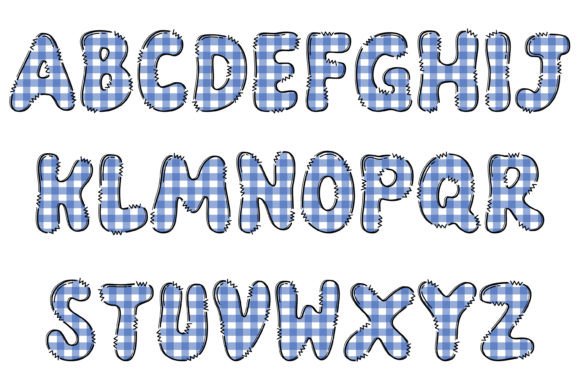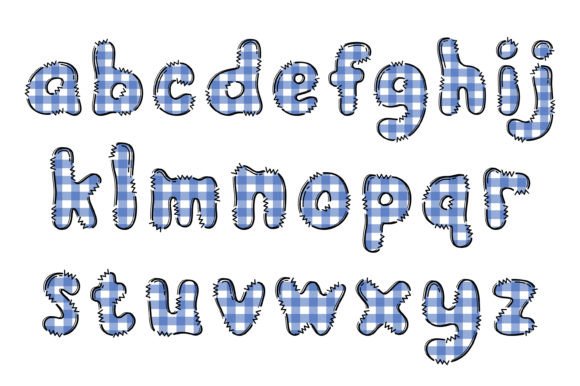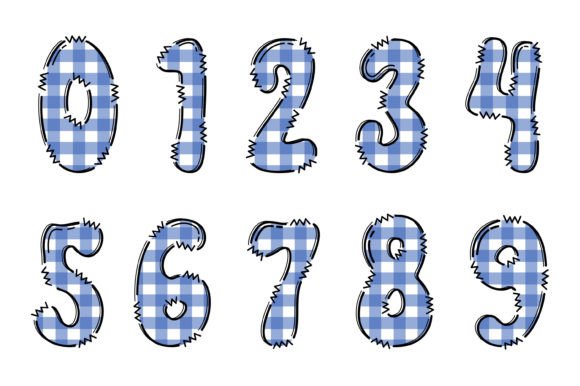
Discover the Whimsical World of Blue Cloth Font
Are you a designer or crafter looking for a font that can add a playful touch to your projects? Look no further than the Blue Cloth Font! This delightful font is perfect for creating engaging and artistic designs that are sure to capture the attention of your audience. In this article, we’ll explore the features and benefits of Blue Cloth Font, and provide you with tips on how to use it in your designs.
What is Blue Cloth Font?
Uses of Blue Cloth Font
Blue Cloth Font is a versatile font that can be used in a variety of designs, including:
- Children’s books: The font’s whimsical and colorful design makes it perfect for creating engaging and interactive children’s books.
- Posters: Add a playful touch to your posters with Blue Cloth Font, making them stand out and grab attention.
- Invitations: Create unique and eye-catching invitations for parties, events, and special occasions.
- Greeting cards: Add a personal touch to your greeting cards with Blue Cloth Font, making them extra special.
Key Features of Blue Cloth Font
Here are some key features of Blue Cloth Font:
- Whimsical design: The font’s playful and artistic design makes it perfect for creating engaging and interactive designs.
- Color and black versions: The font comes in both color and black versions, giving you flexibility in your designs.
Tips for Using Blue Cloth Font
Here are some tips for using Blue Cloth Font in your designs:
- Pair with other fonts: Experiment with pairing Blue Cloth Font with other fonts to create unique and interesting combinations.
- Use in combination with images: Add visual interest to your designs by combining Blue Cloth Font with images or graphics.
- Experiment with colors: Try out different colors and color combinations to add depth and interest to your designs.